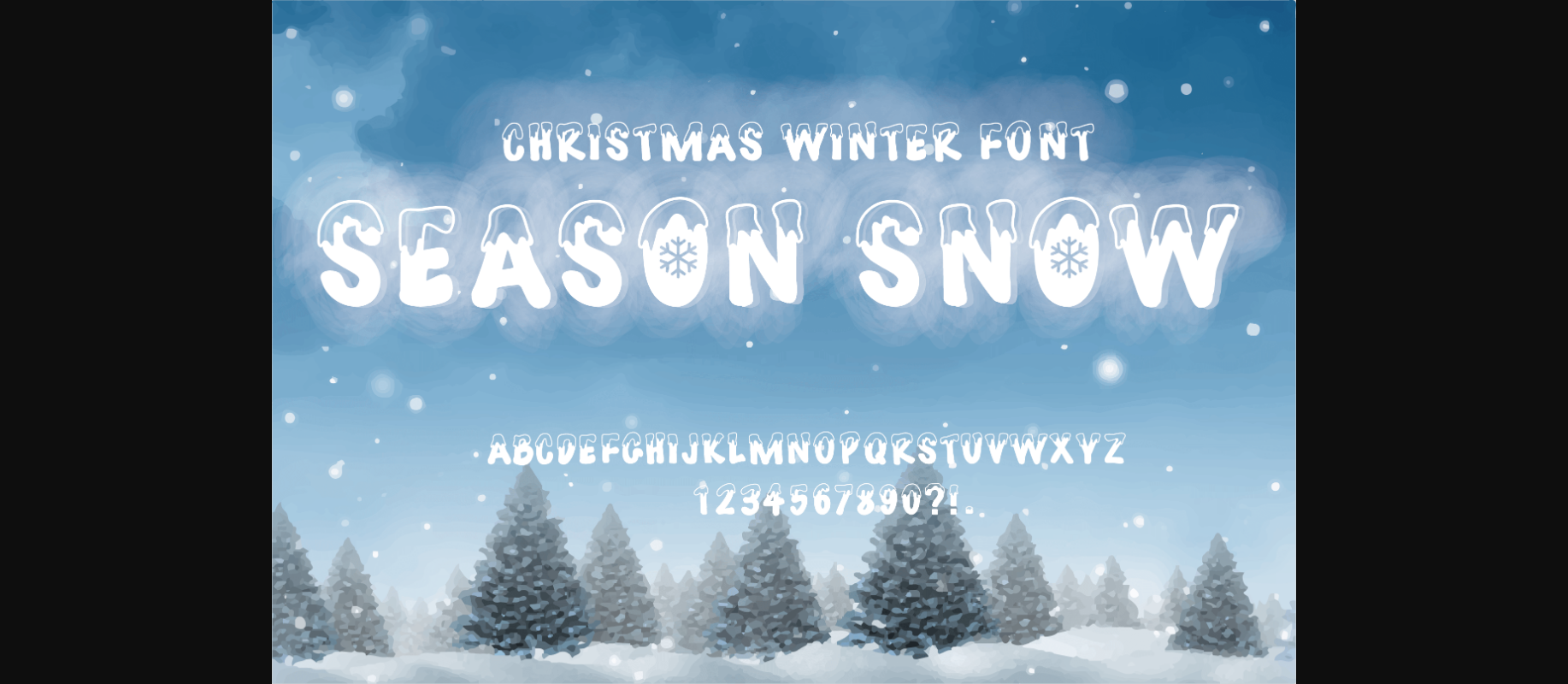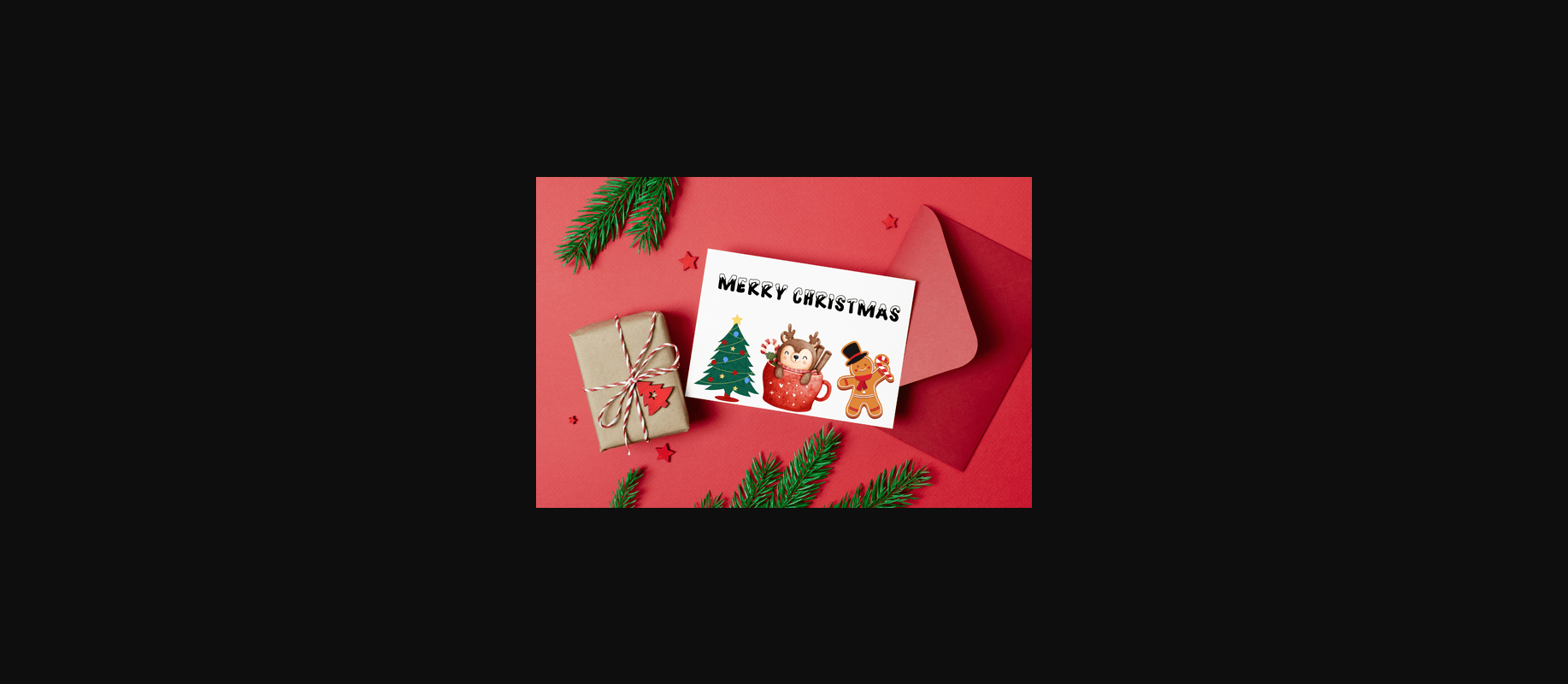
Season Snow Font
About Season Snow Font
Season Snow is a cute and adorable decorative font. This font is suitable for all your festive winter or Christmas-themed projects.